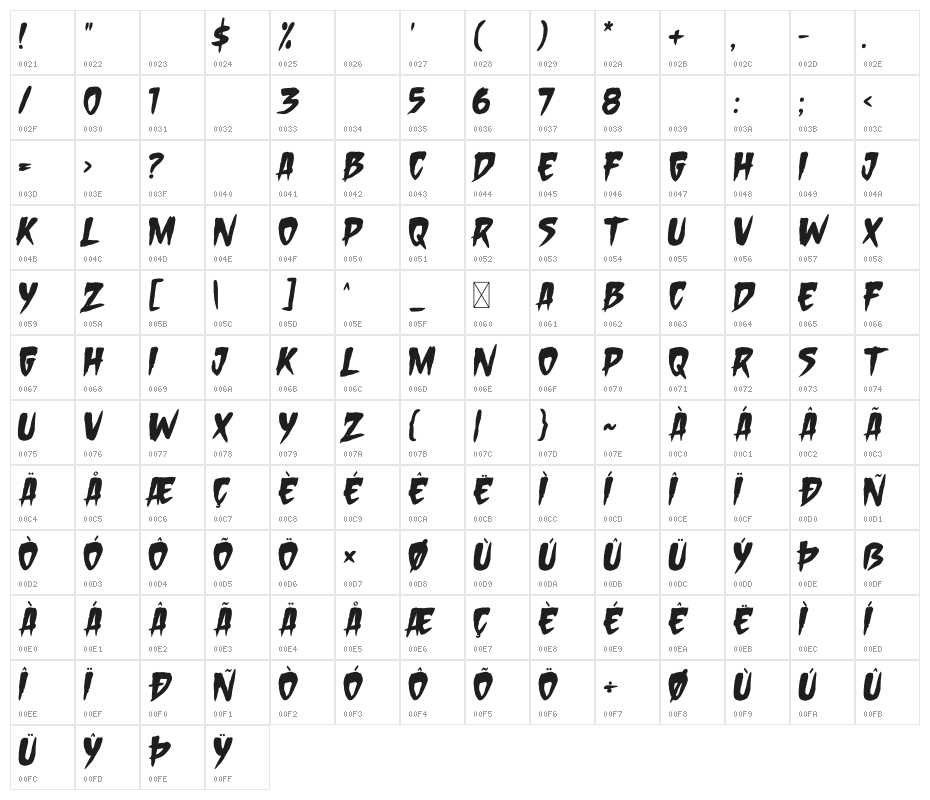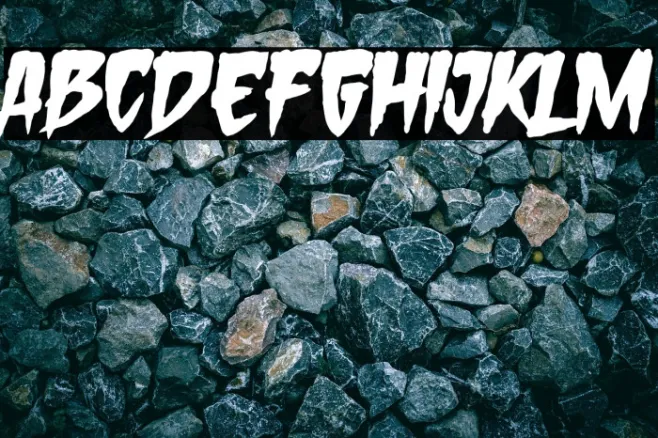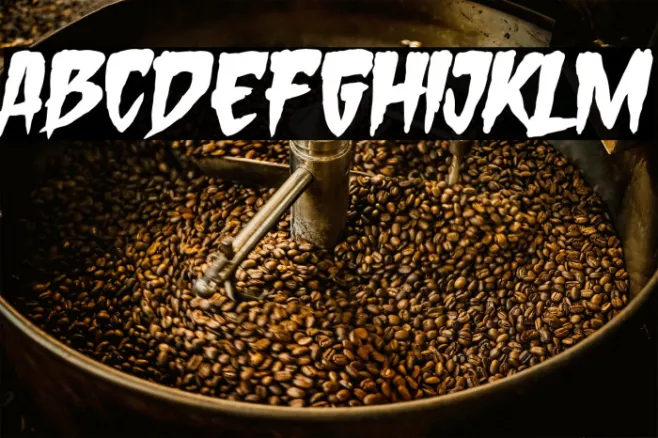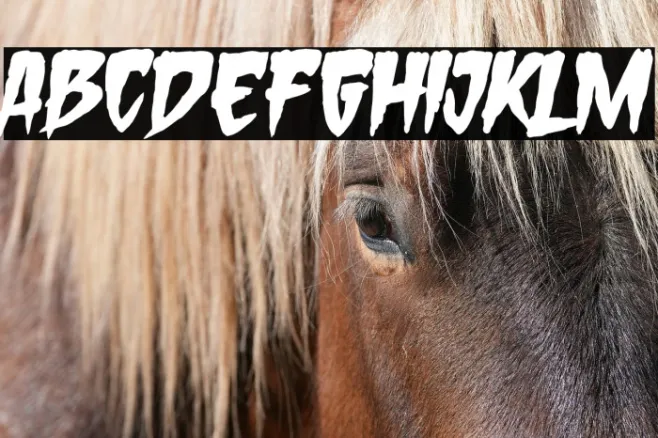
Sleepless Font
Sleepless Description
This font features a bold and dynamic brush style, characterized by its thick, uneven strokes that convey a sense of energy and movement. The letters have a hand-painted appearance, with sharp angles and a slightly aggressive flair. The uppercase and lowercase characters maintain a consistent style, while the numbers and special characters integrate seamlessly with the overall design. This font's unique aesthetic makes it stand out, perfect for projects that require a strong visual impact.
| Overall Style | Modern, Artistic |
| Proposed Projects | Ideal for posters, album covers, branding projects, and any design requiring a bold, artistic touch. |